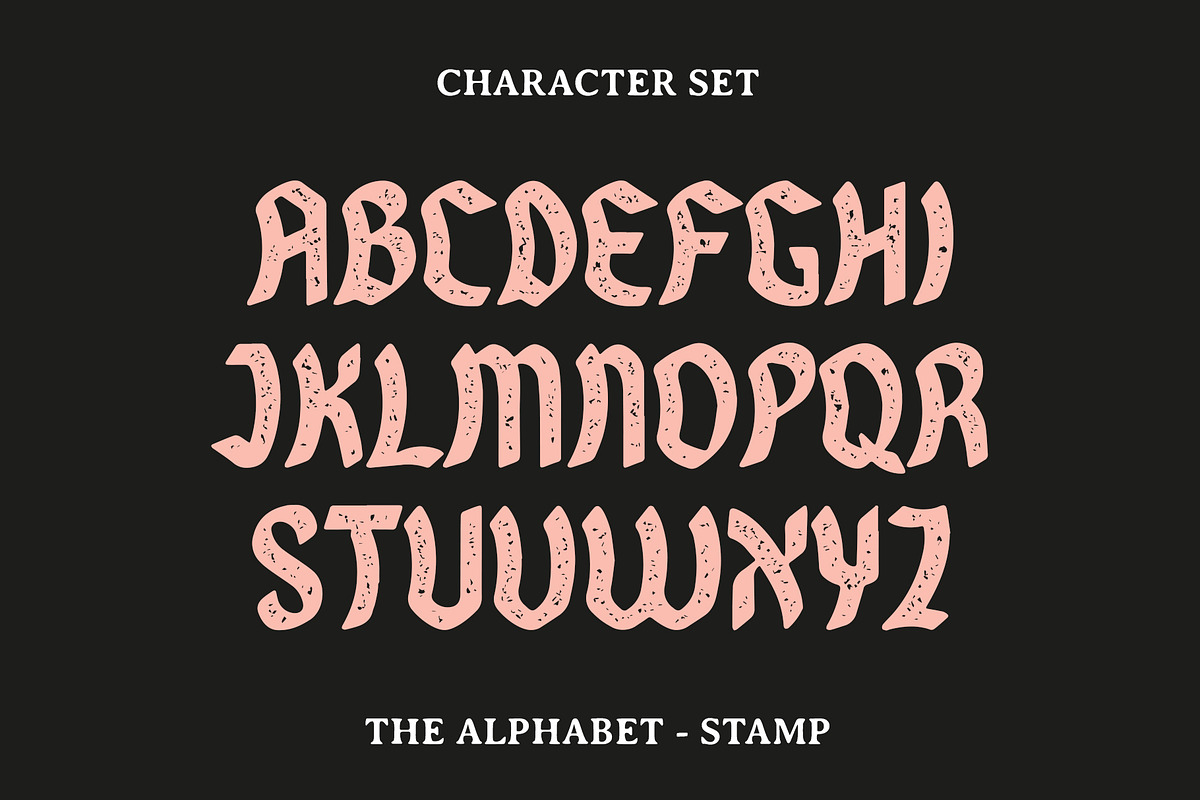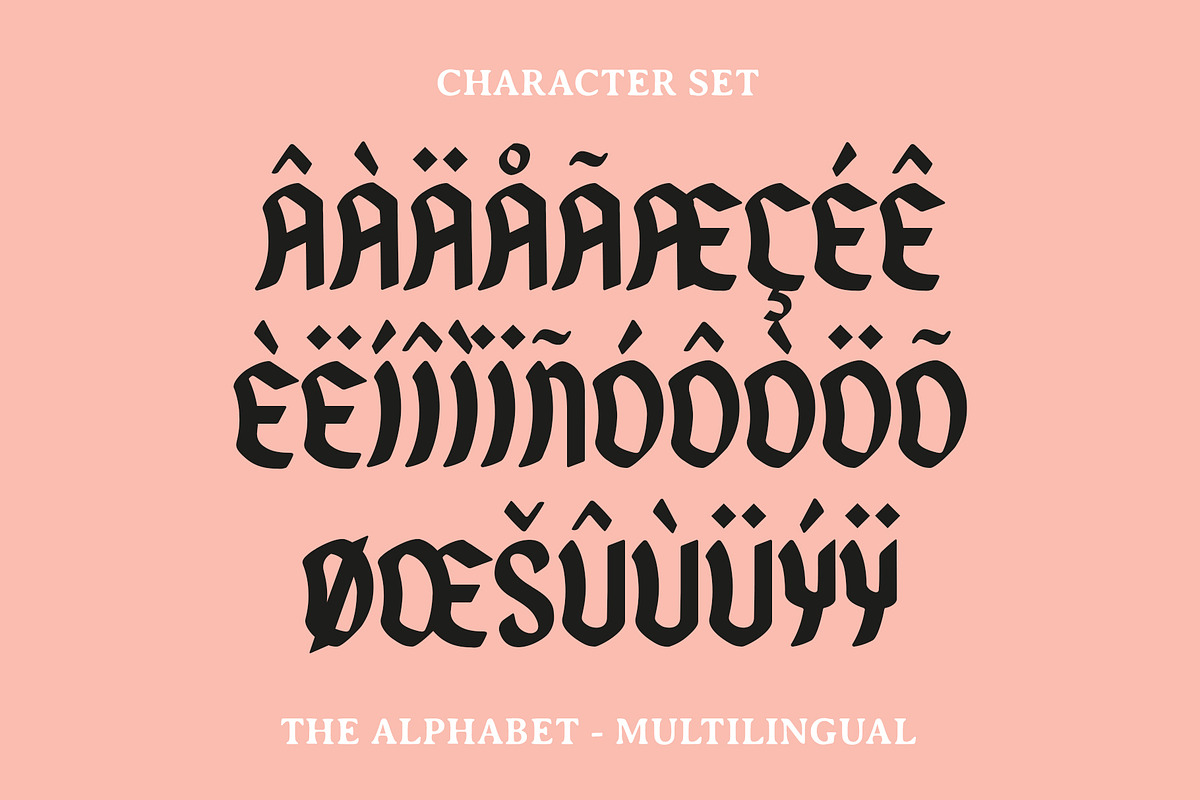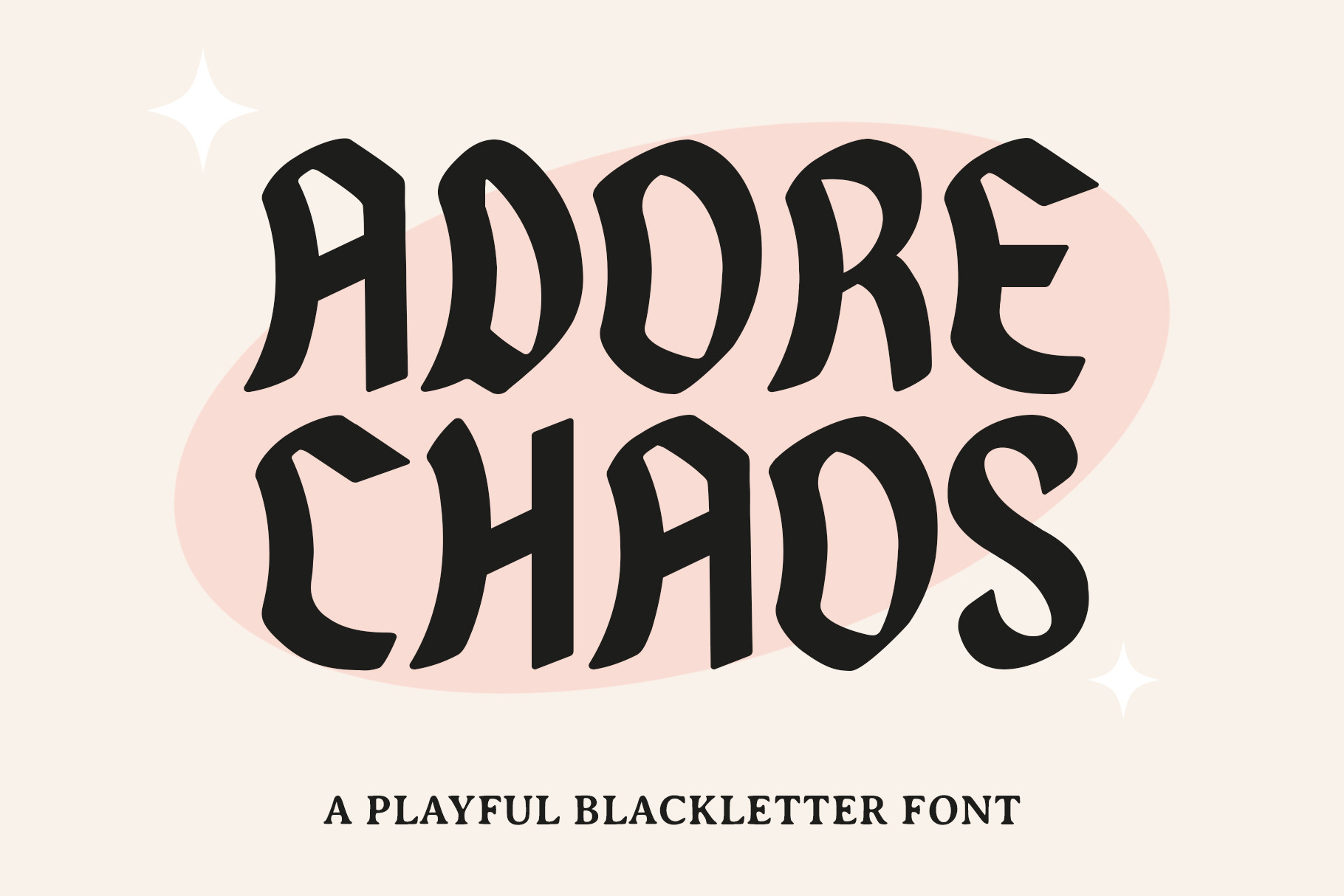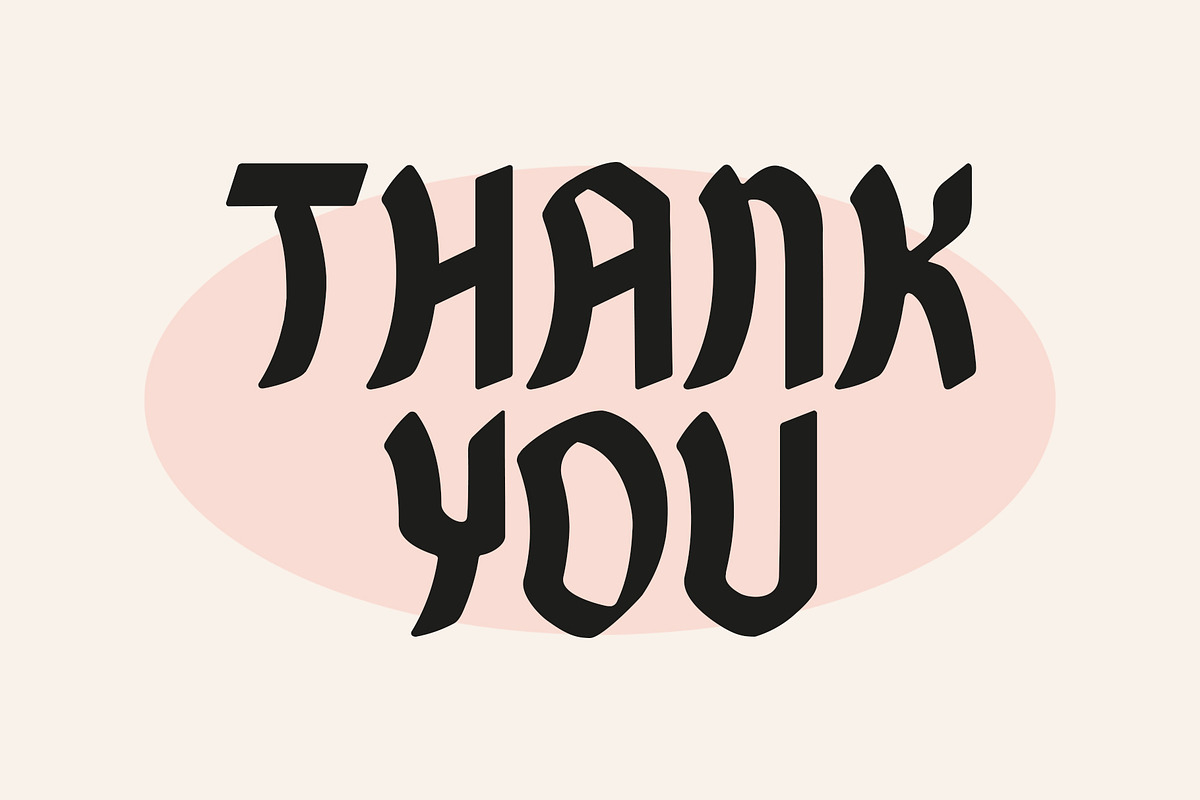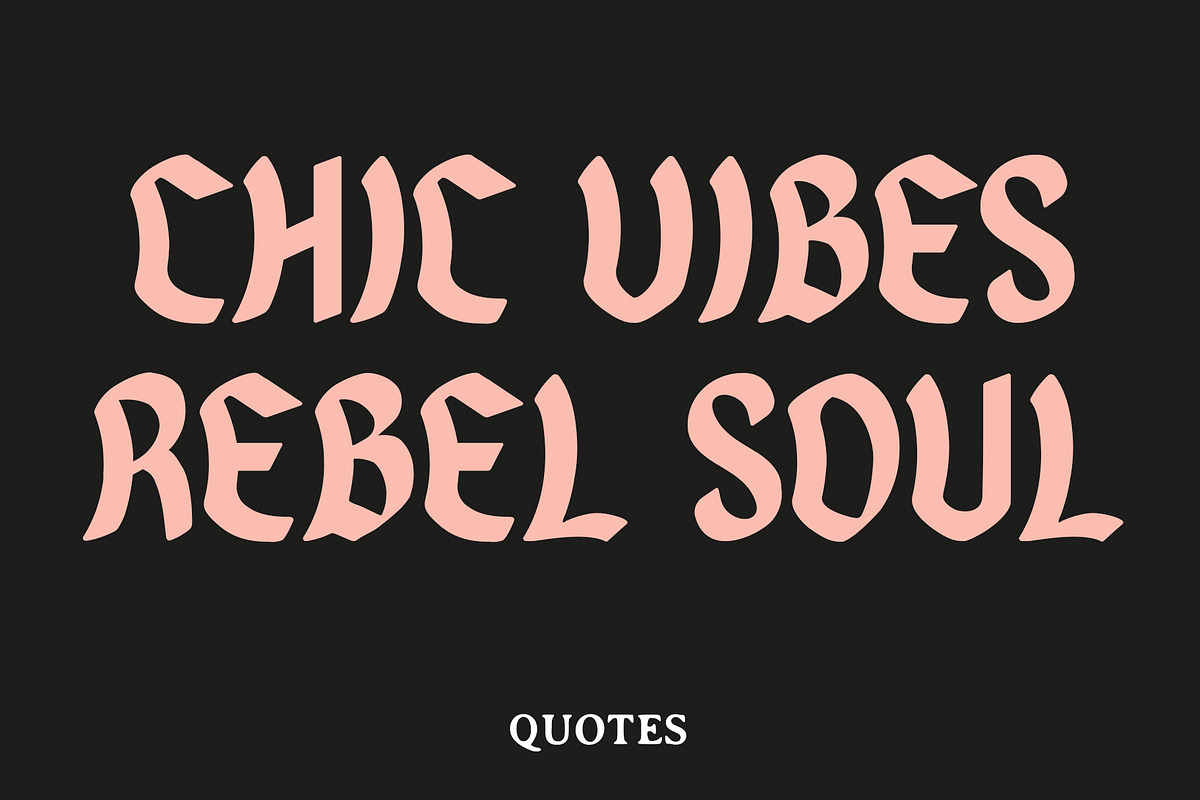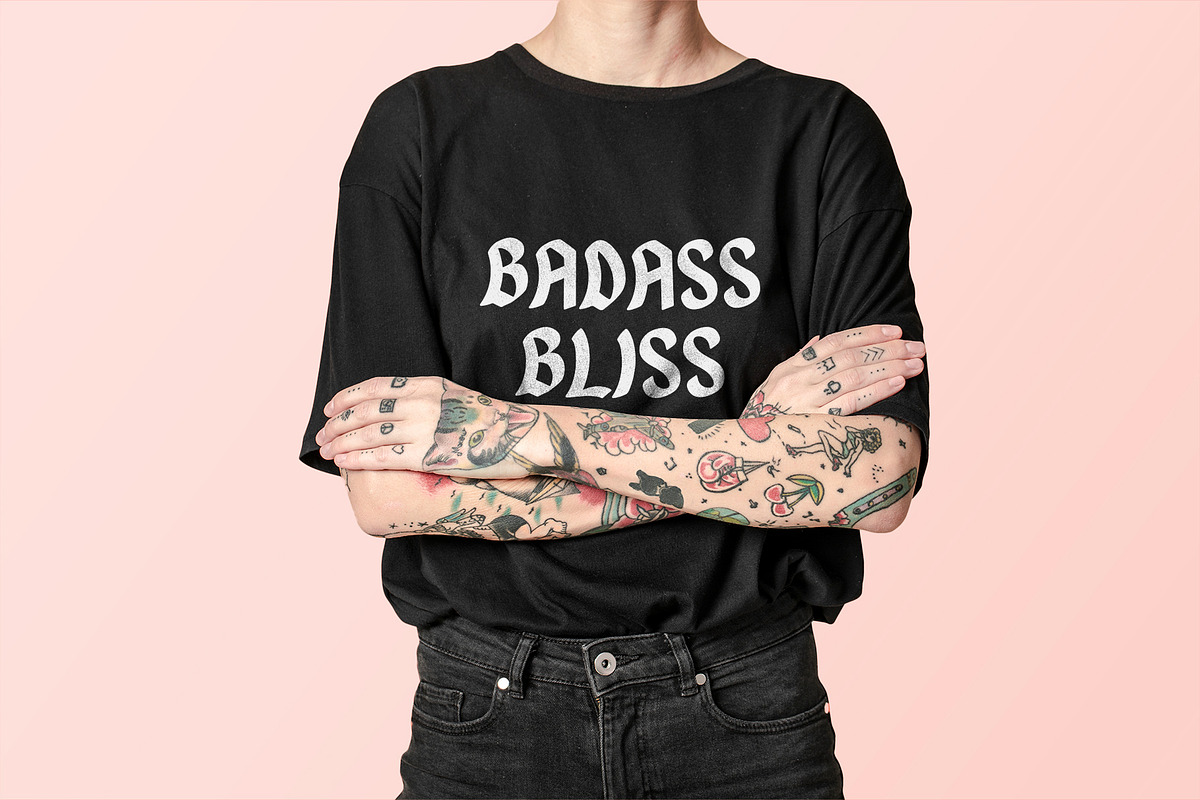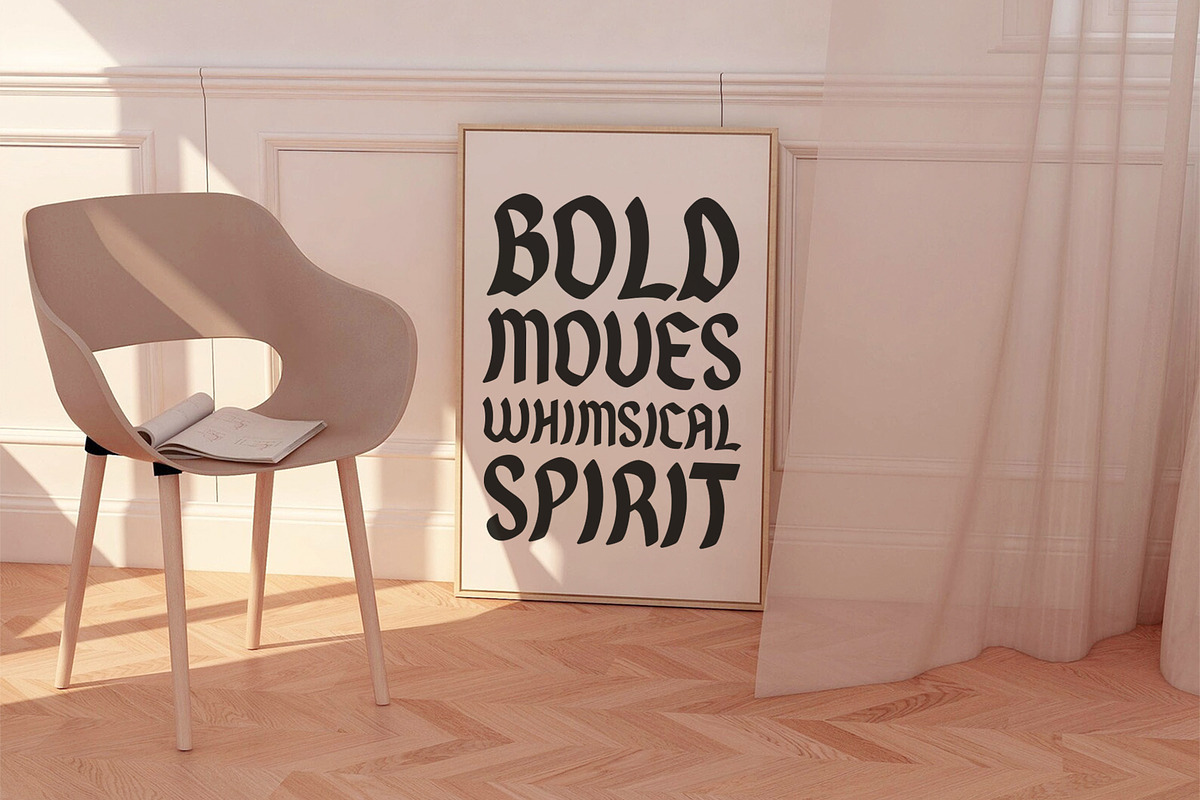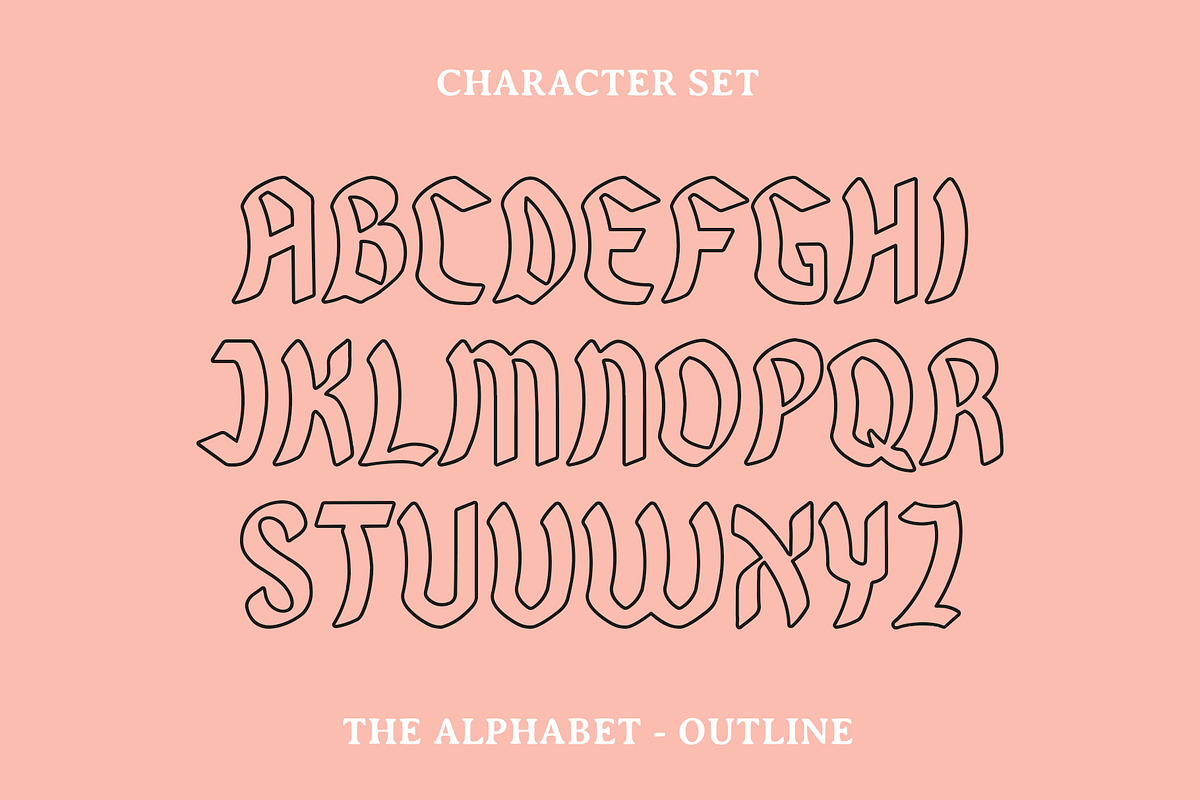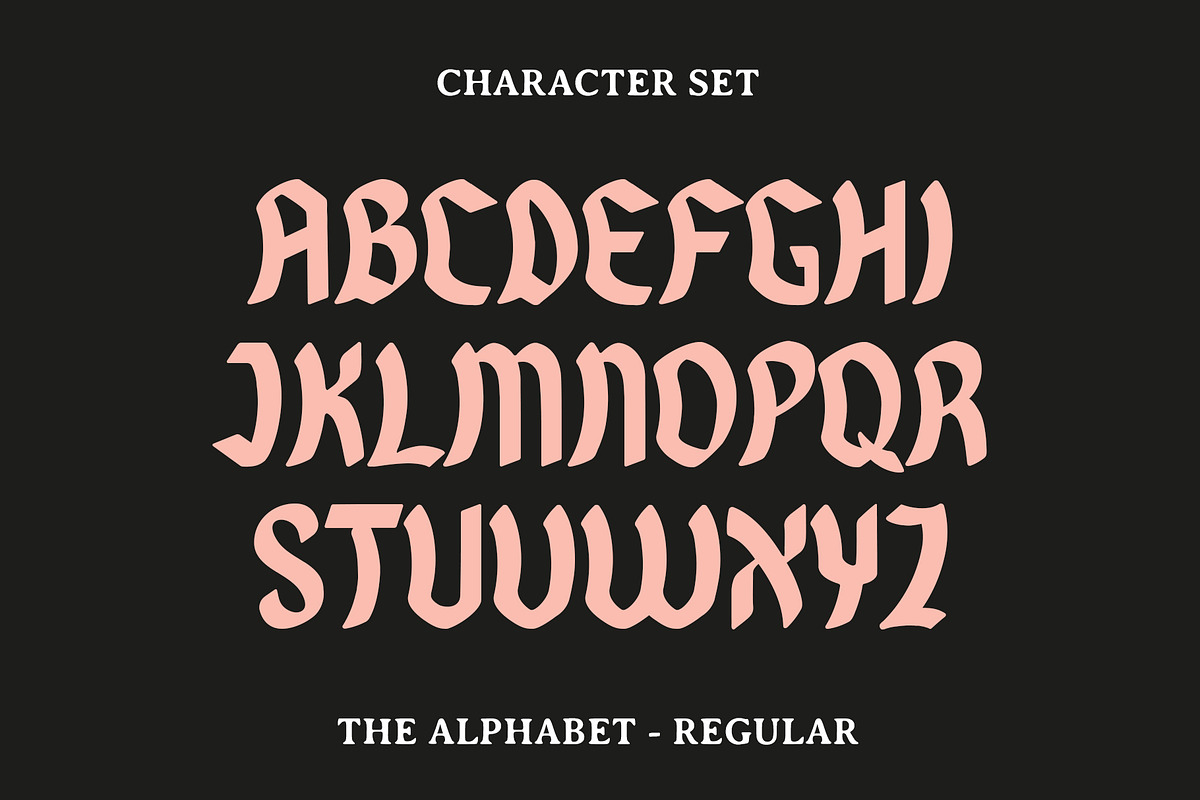
Adore Chaos- Blackletter Font
Adore Chaos is a captivating Blackletter font that seamlessly blends tradition with a contemporary edge. This typeface available in SVG format, compatible with advanced tools such as Cricut and Glowforge, and for use in Procreate. With its bold, intricate strokes and ornate details, this typeface exudes a sense of medieval elegance while embracing a modern, rebellious spirit.